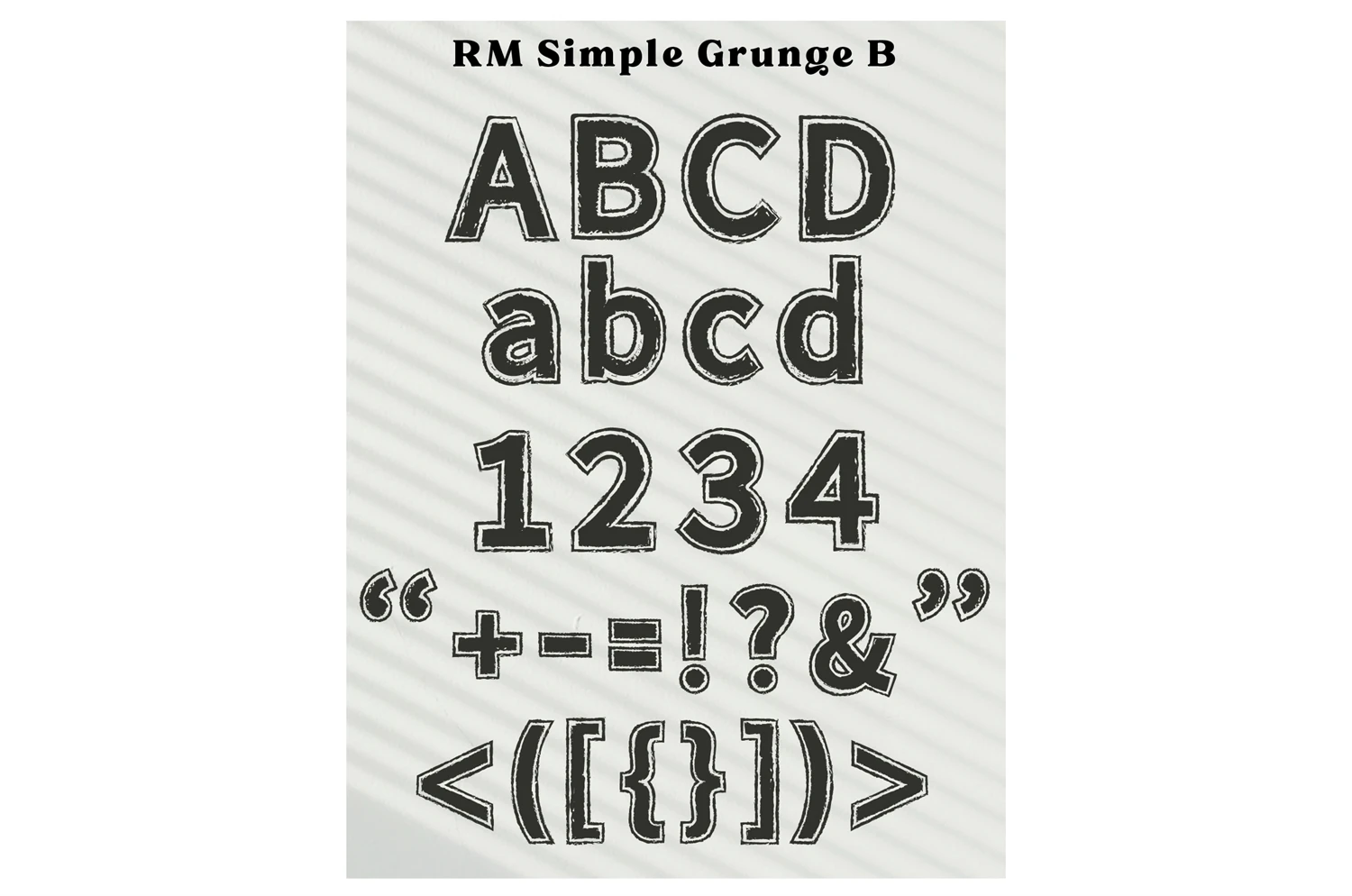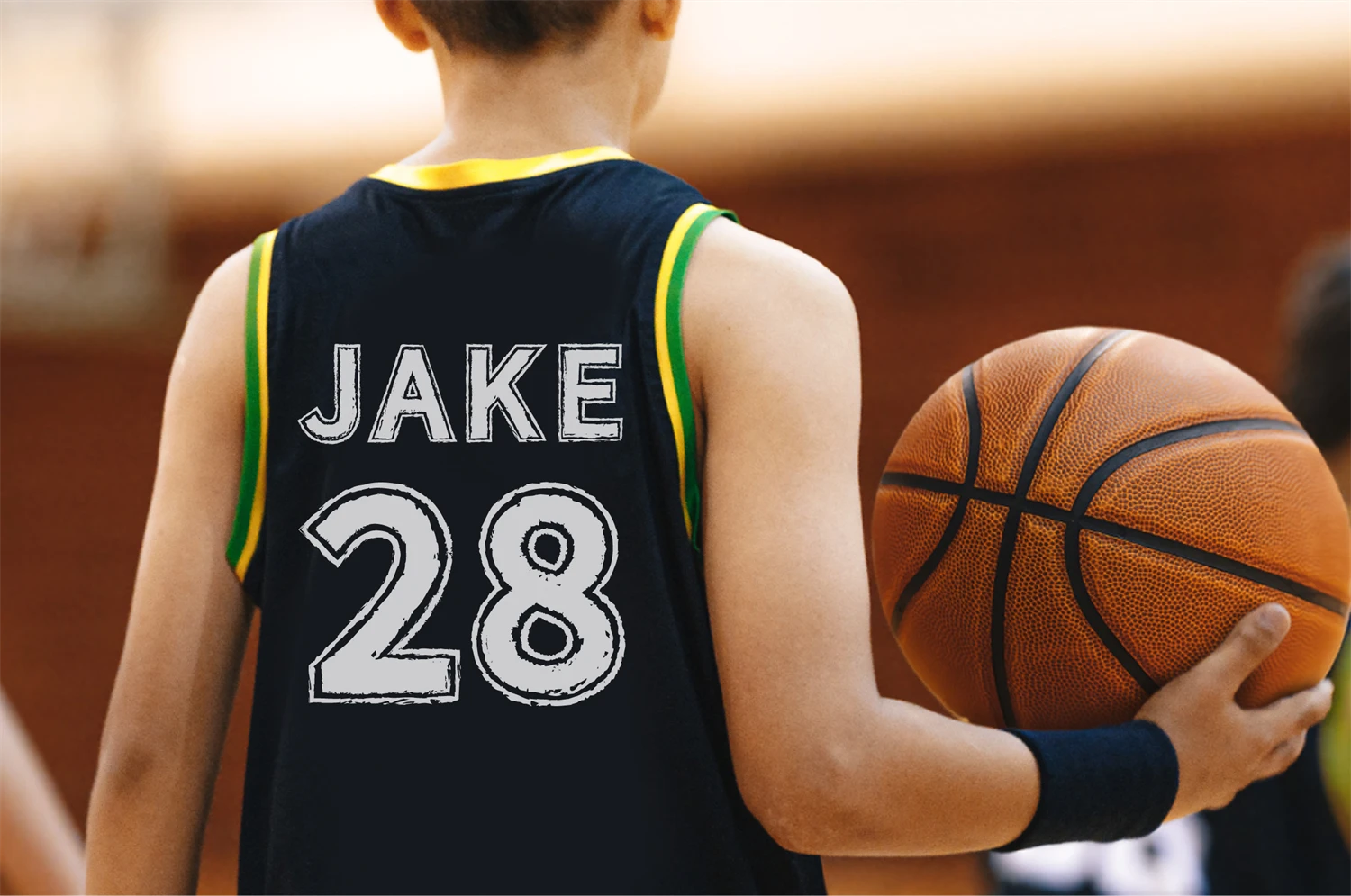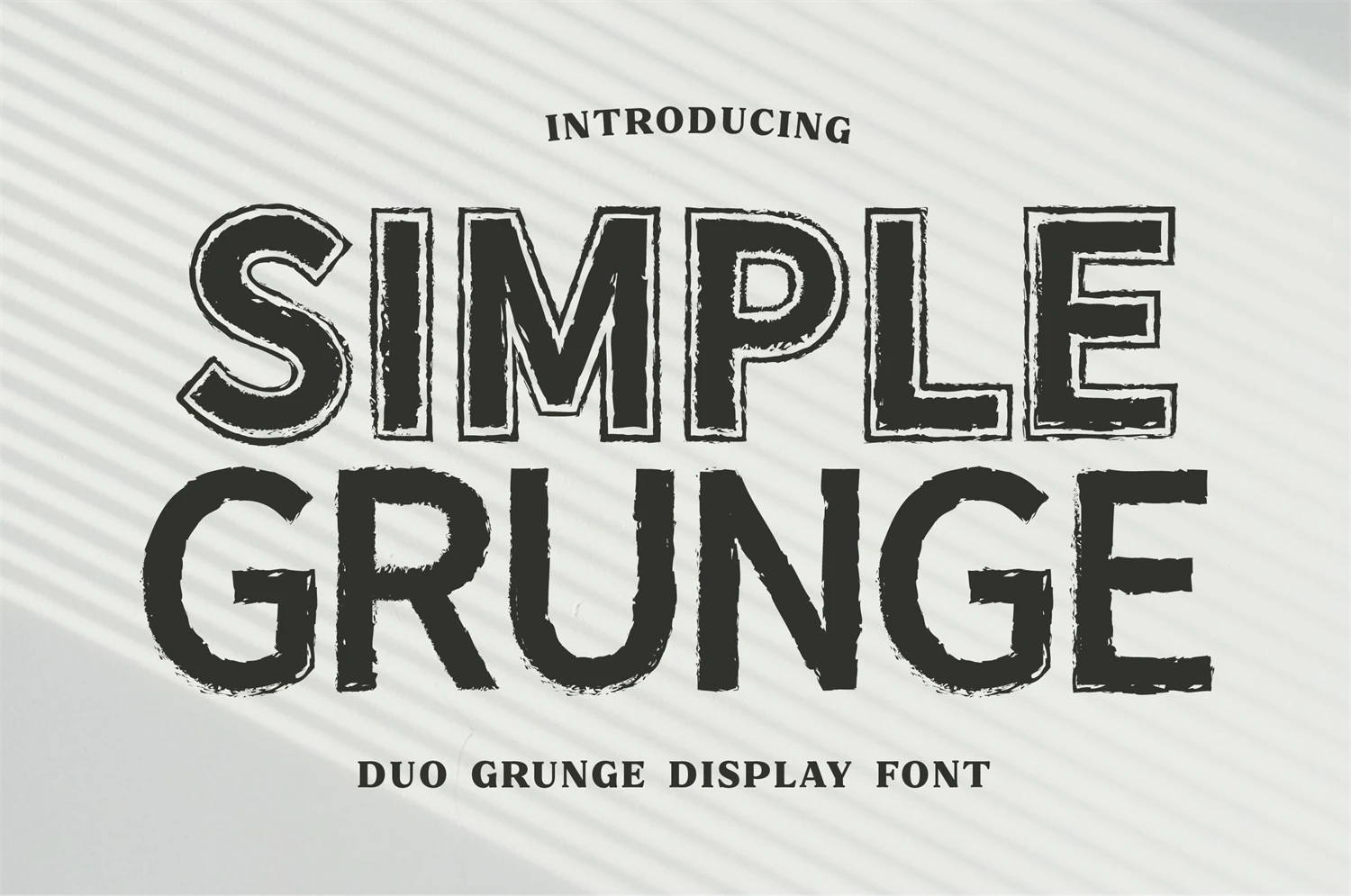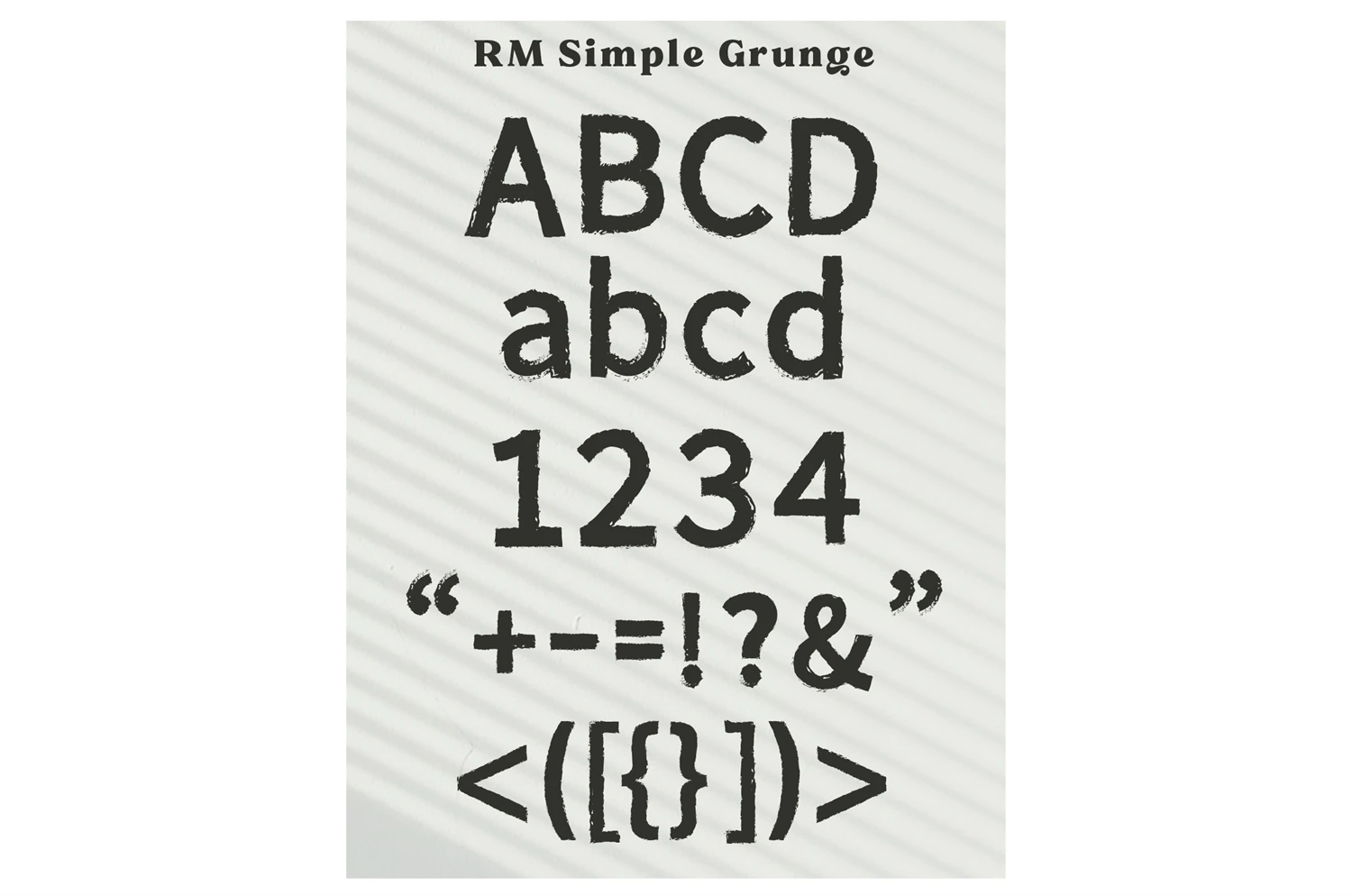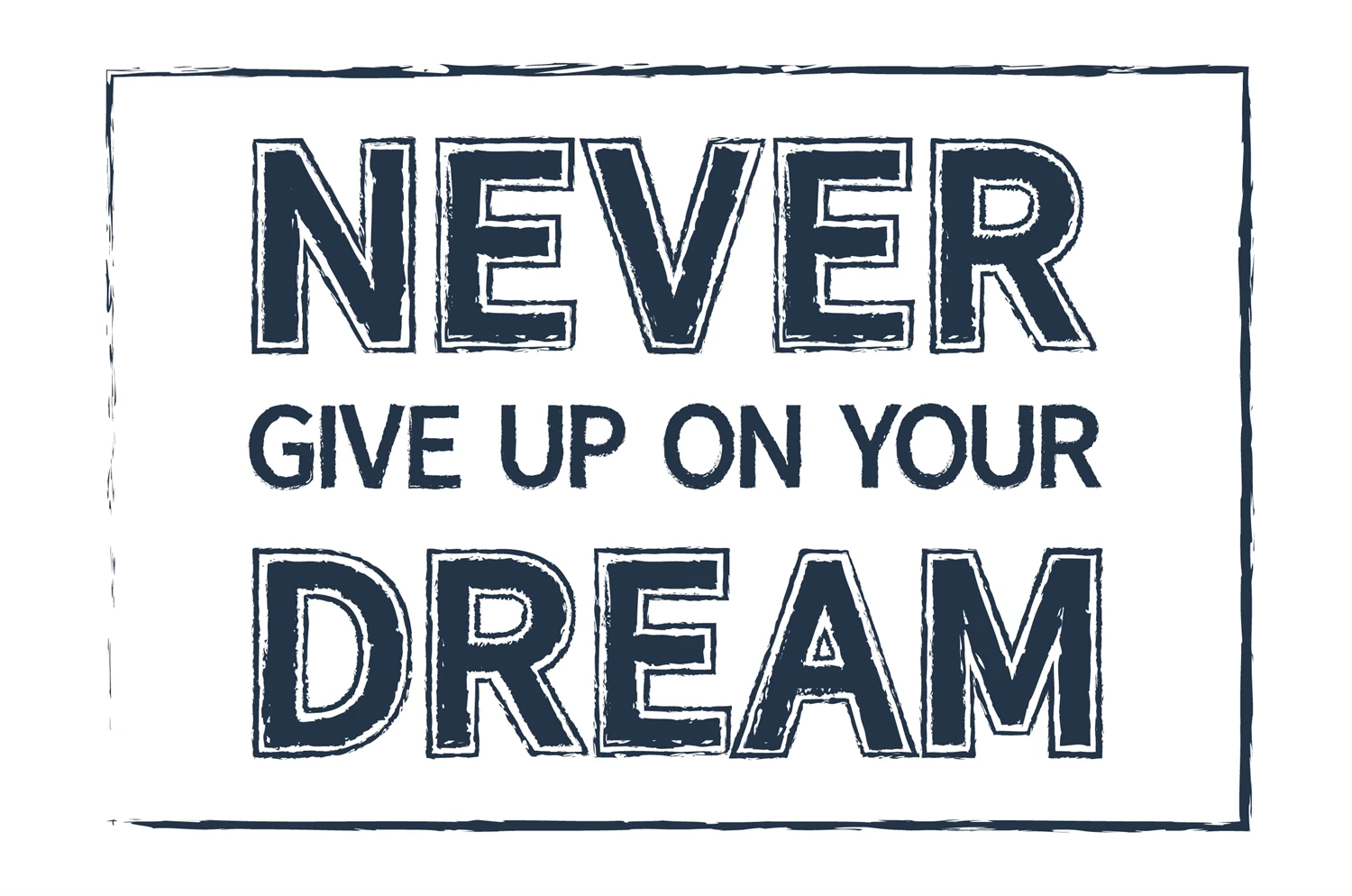
Simple Grunge is sport font in grunge effect. Include 2 style regular and border come with uppercase and lowercase perfect and easy to apply and make your design stand out.